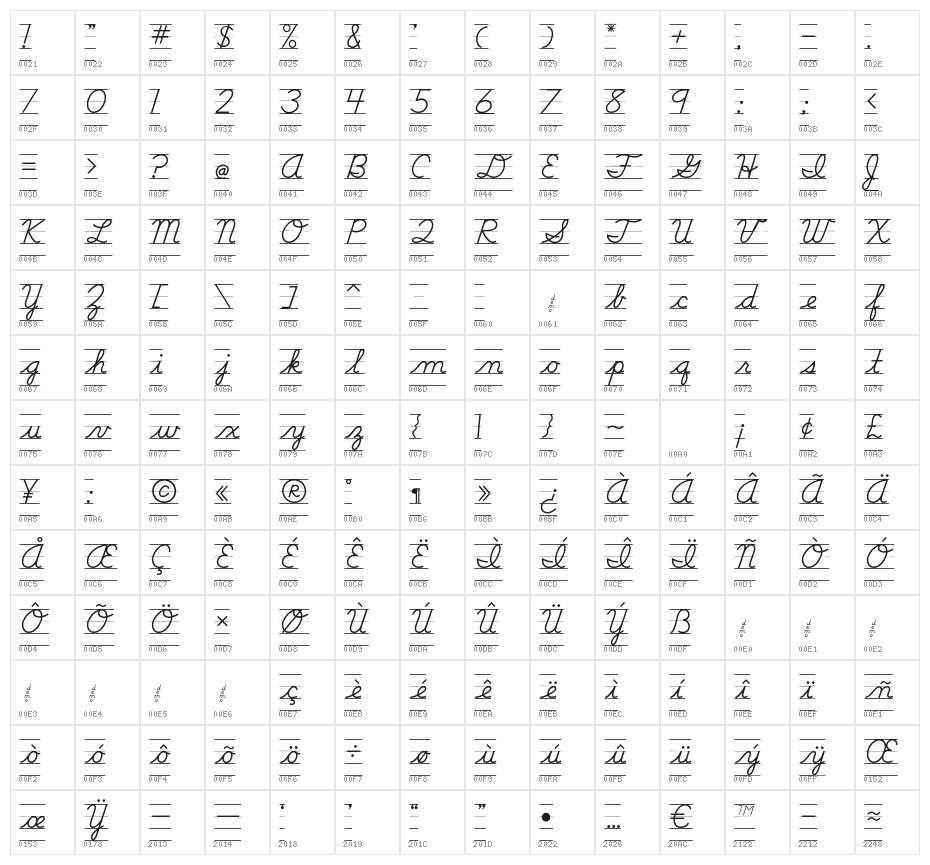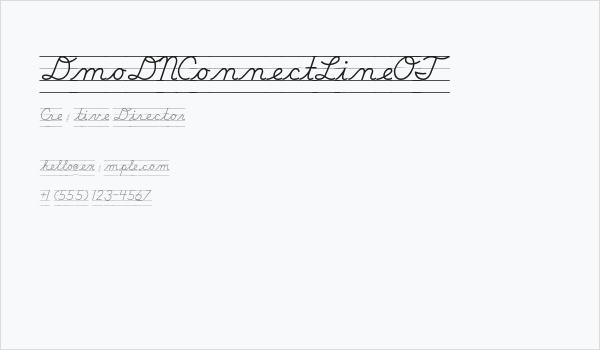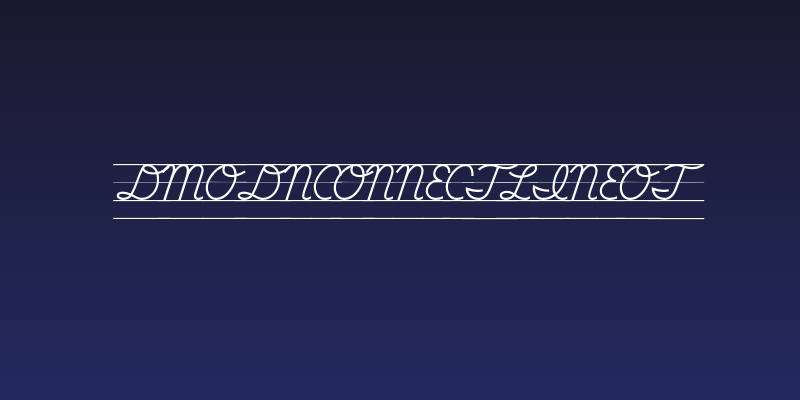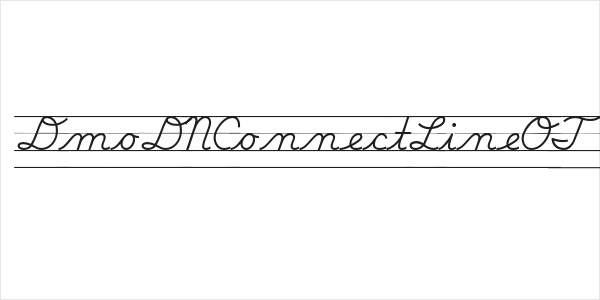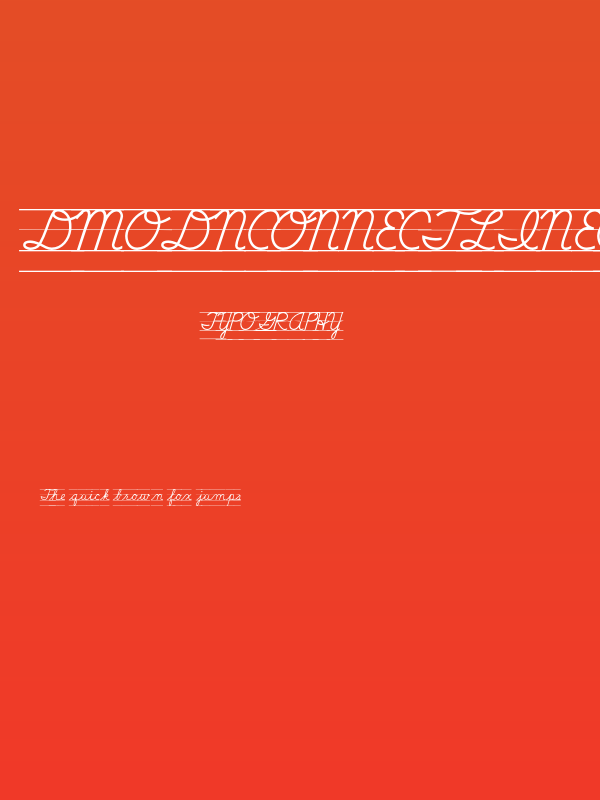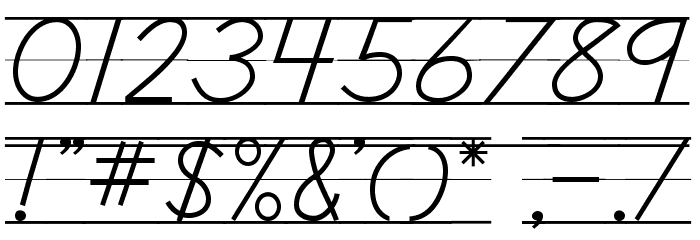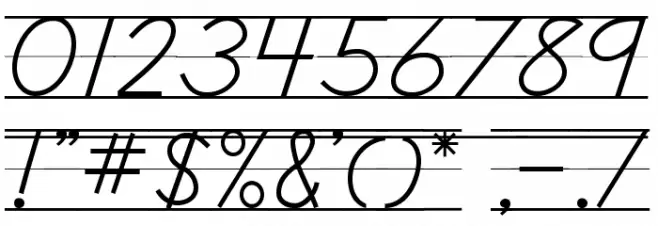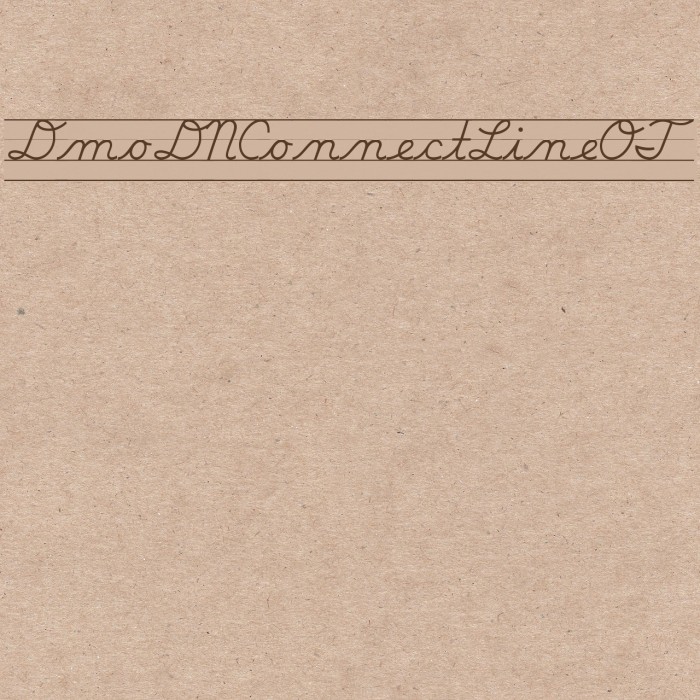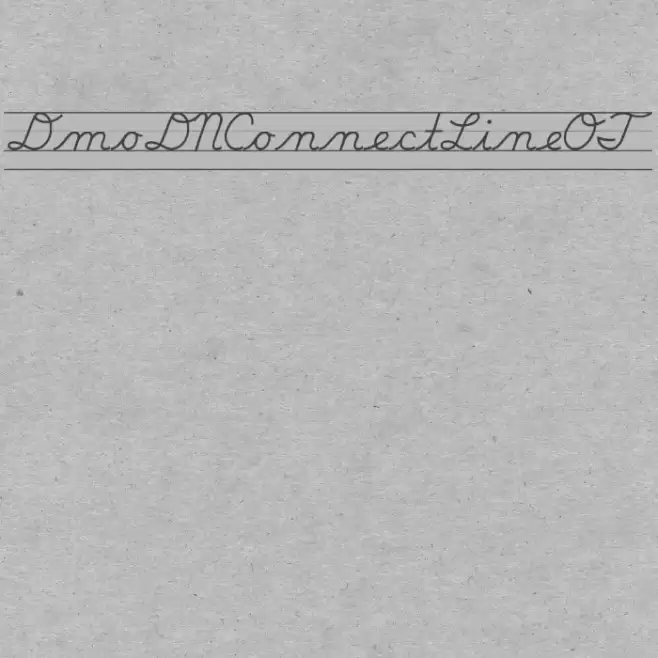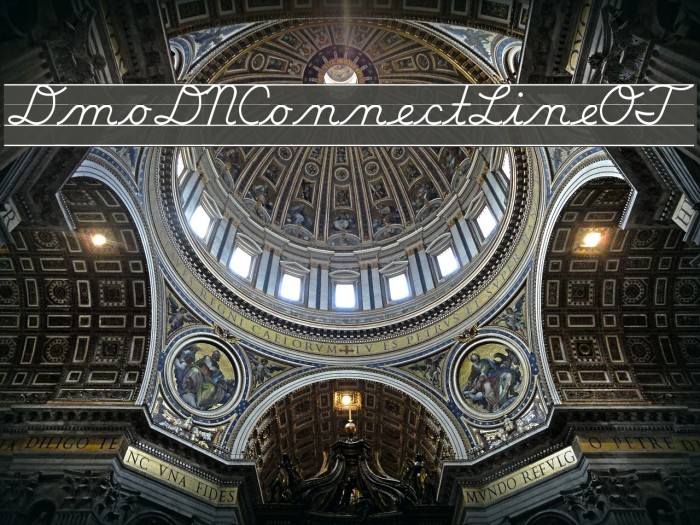
DmoDNConnectLineOT Font
DmoDNConnectLineOT Description
This elegant script font features a classic cursive style with smooth, flowing lines that connect seamlessly between characters. The uppercase letters are bold and prominent, while the lowercase letters maintain a delicate and graceful appearance. The numerals are clear and easy to read, with a slight slant that matches the overall cursive style. Special characters are included, maintaining the same fluidity and elegance. The font's design is reminiscent of traditional handwriting, making it suitable for projects that require a personal touch.
| Overall Style | Classic |
| Use Case | Headlines, Invitations, Personal Correspondence |
| Proposed Projects | Ideal for wedding invitations, greeting cards, personal letters, and branding materials that require a touch of elegance and sophistication. |